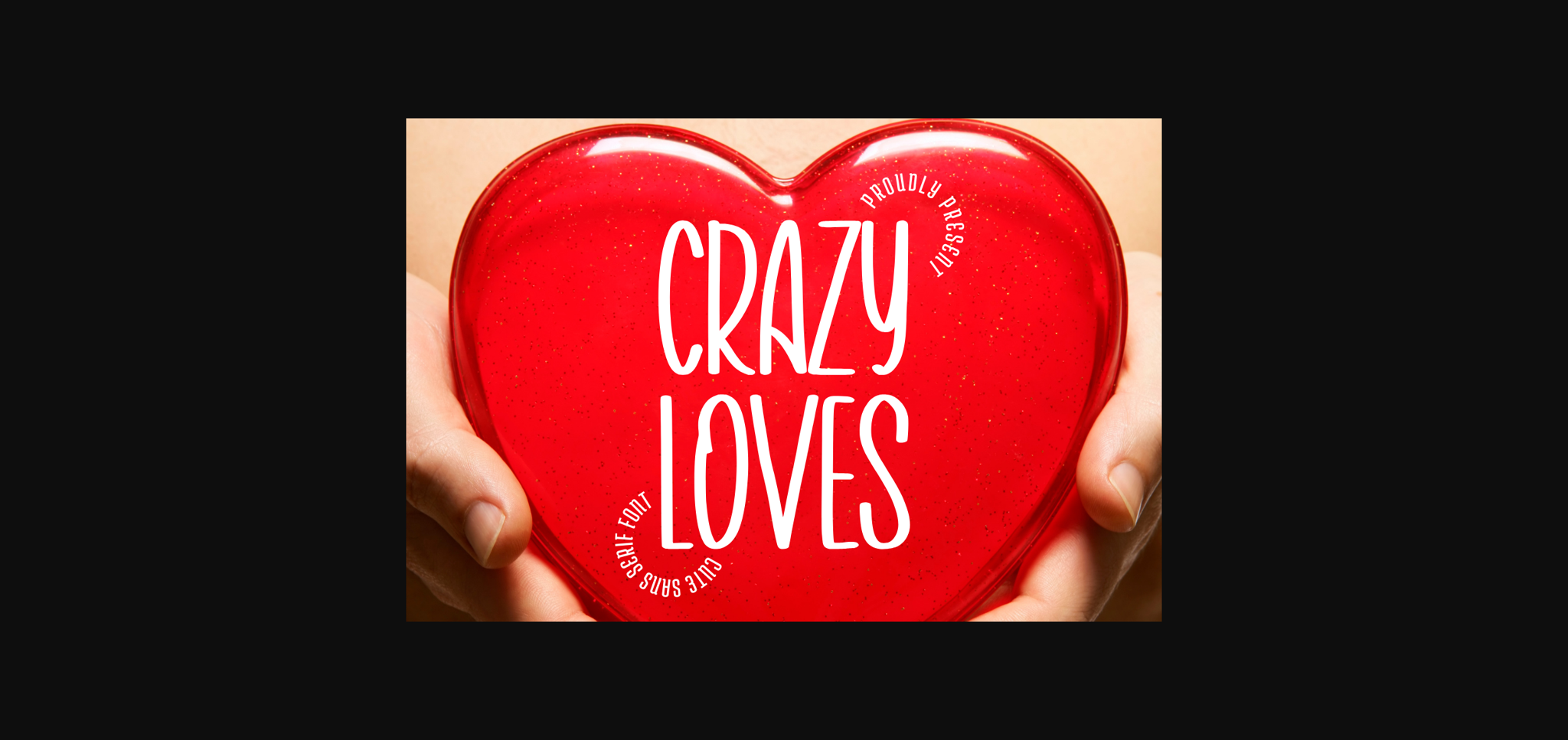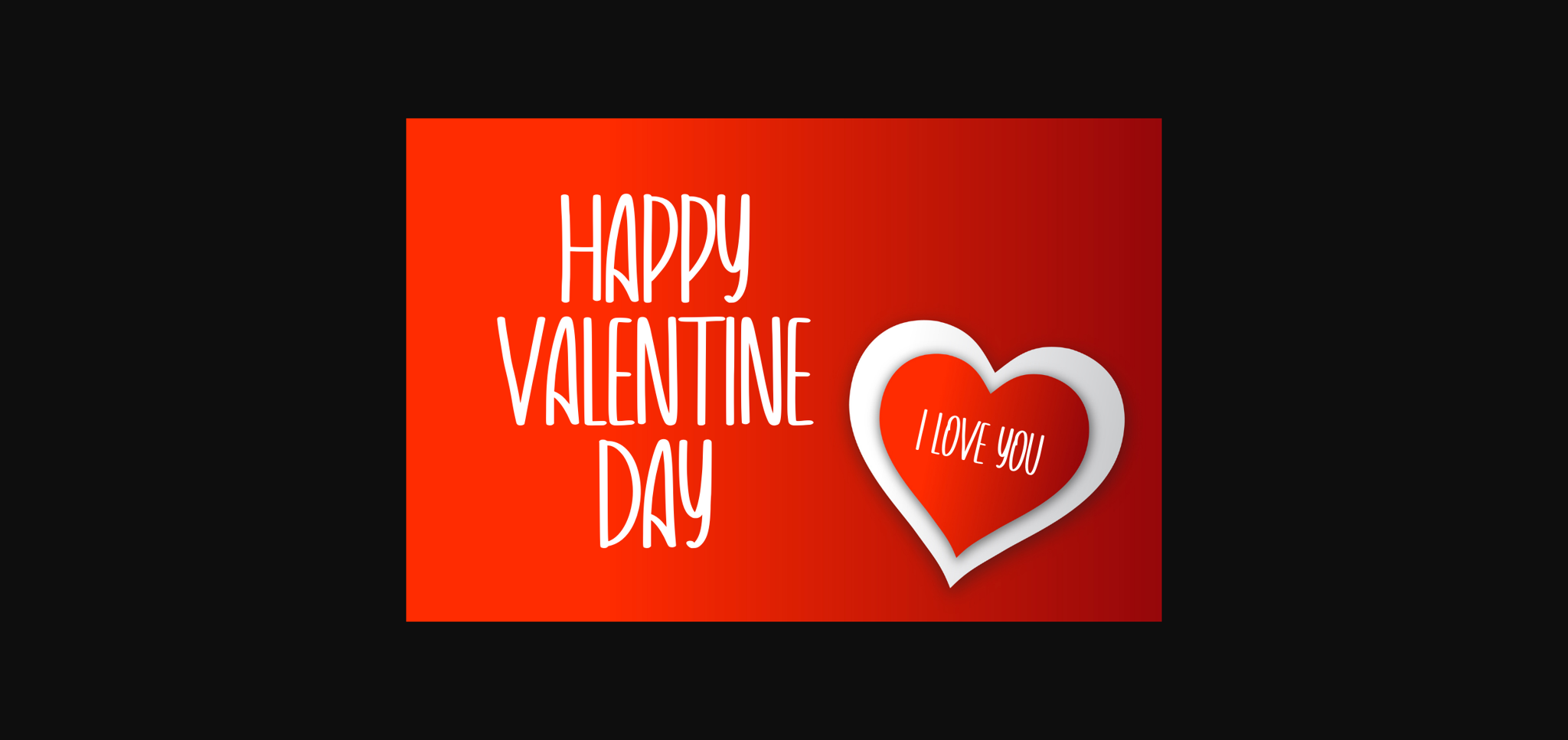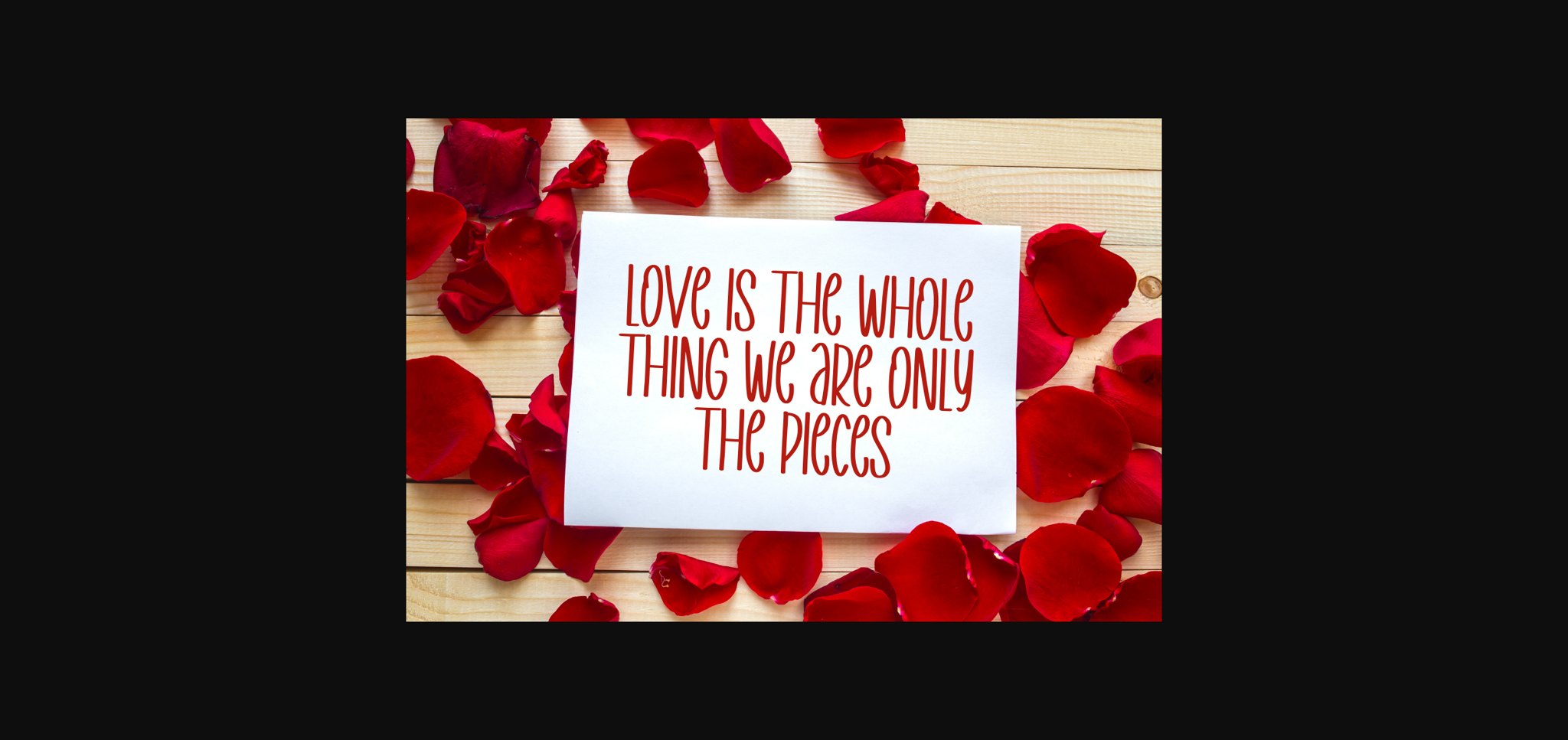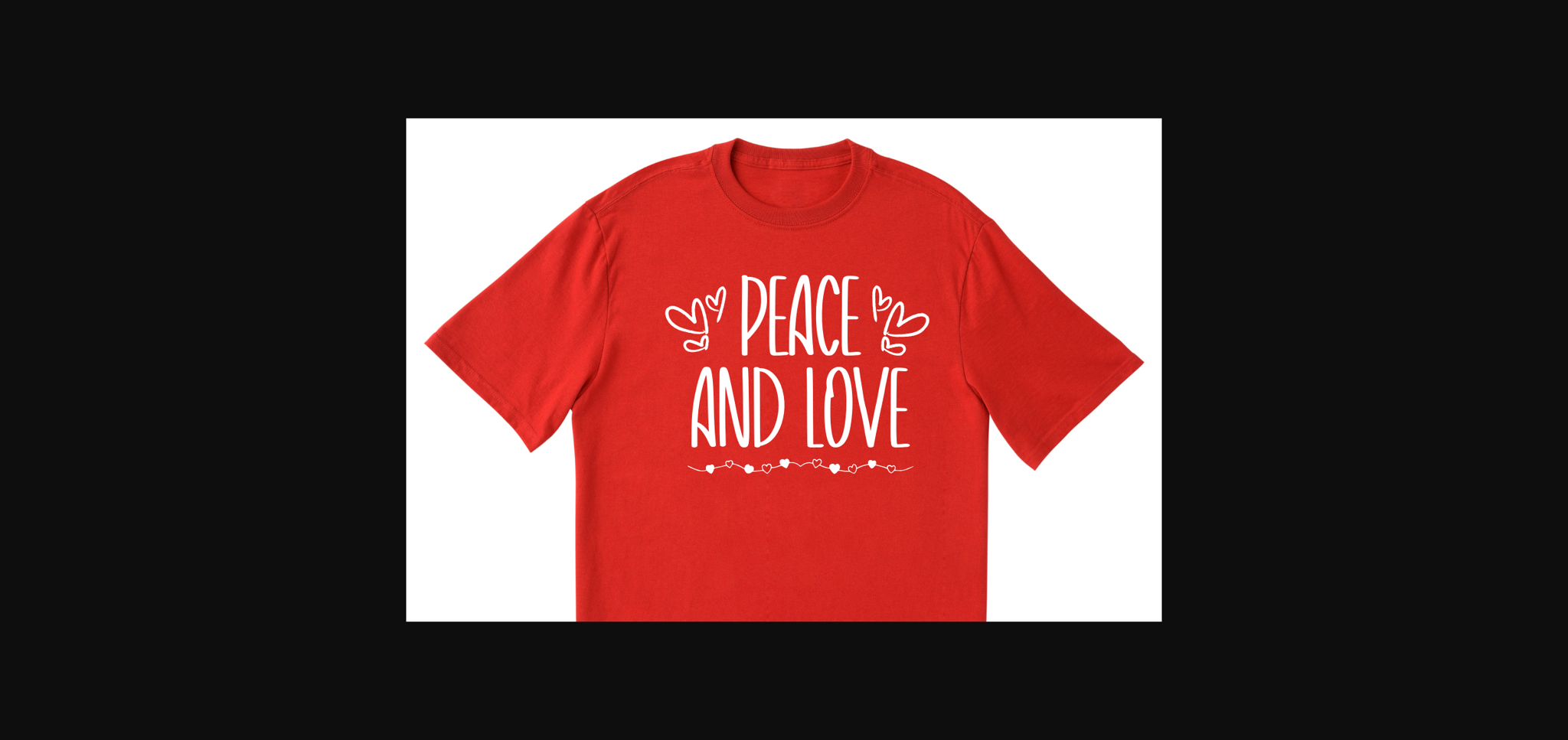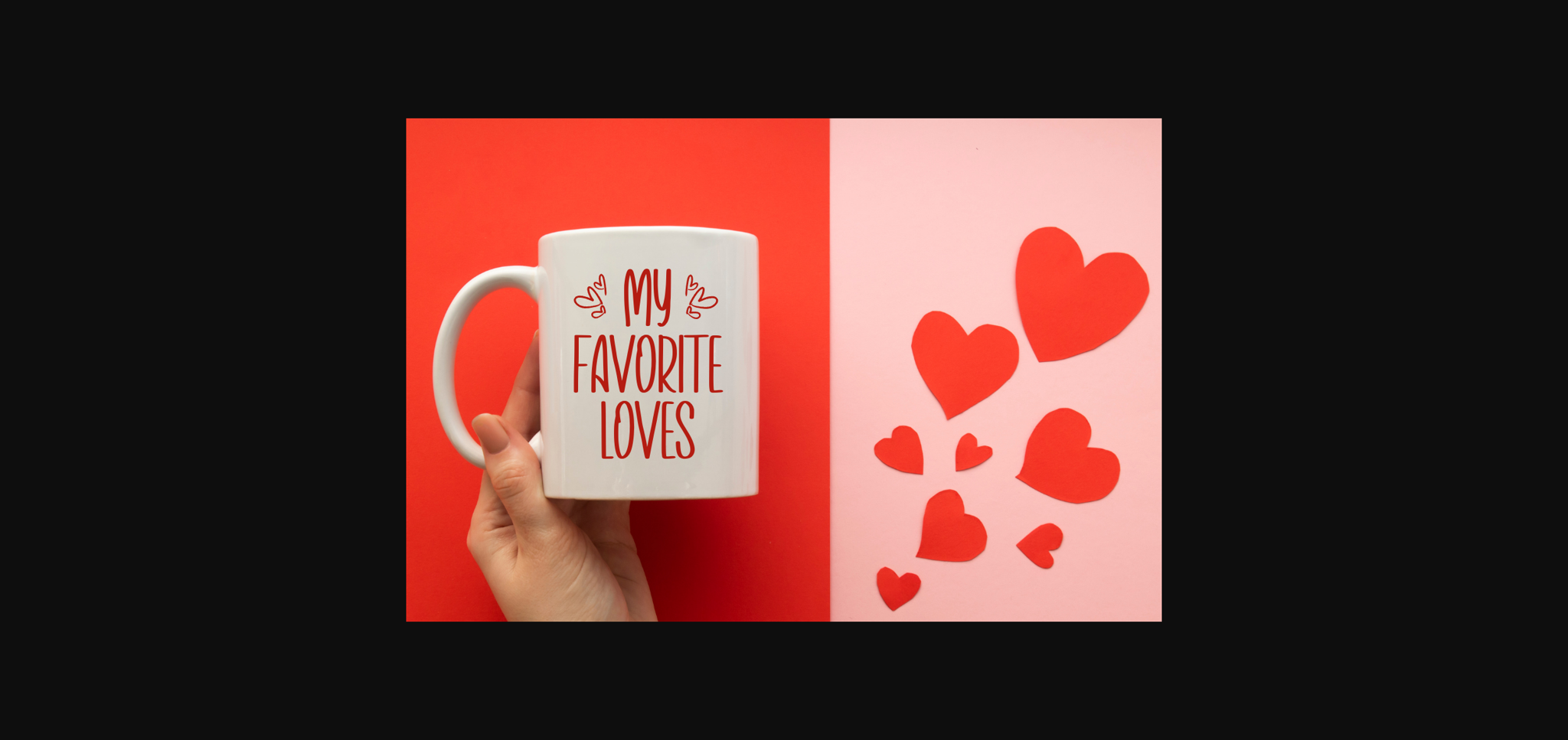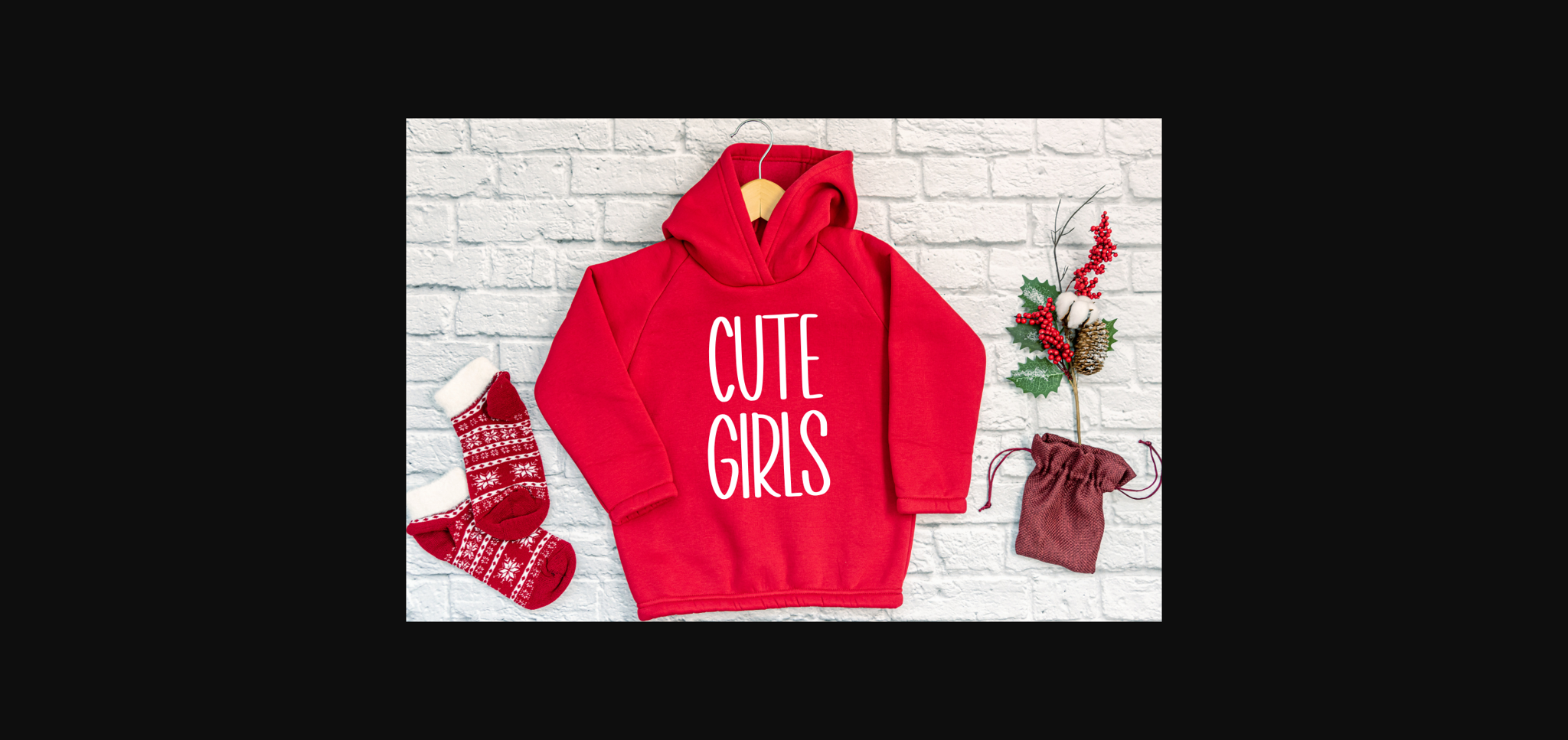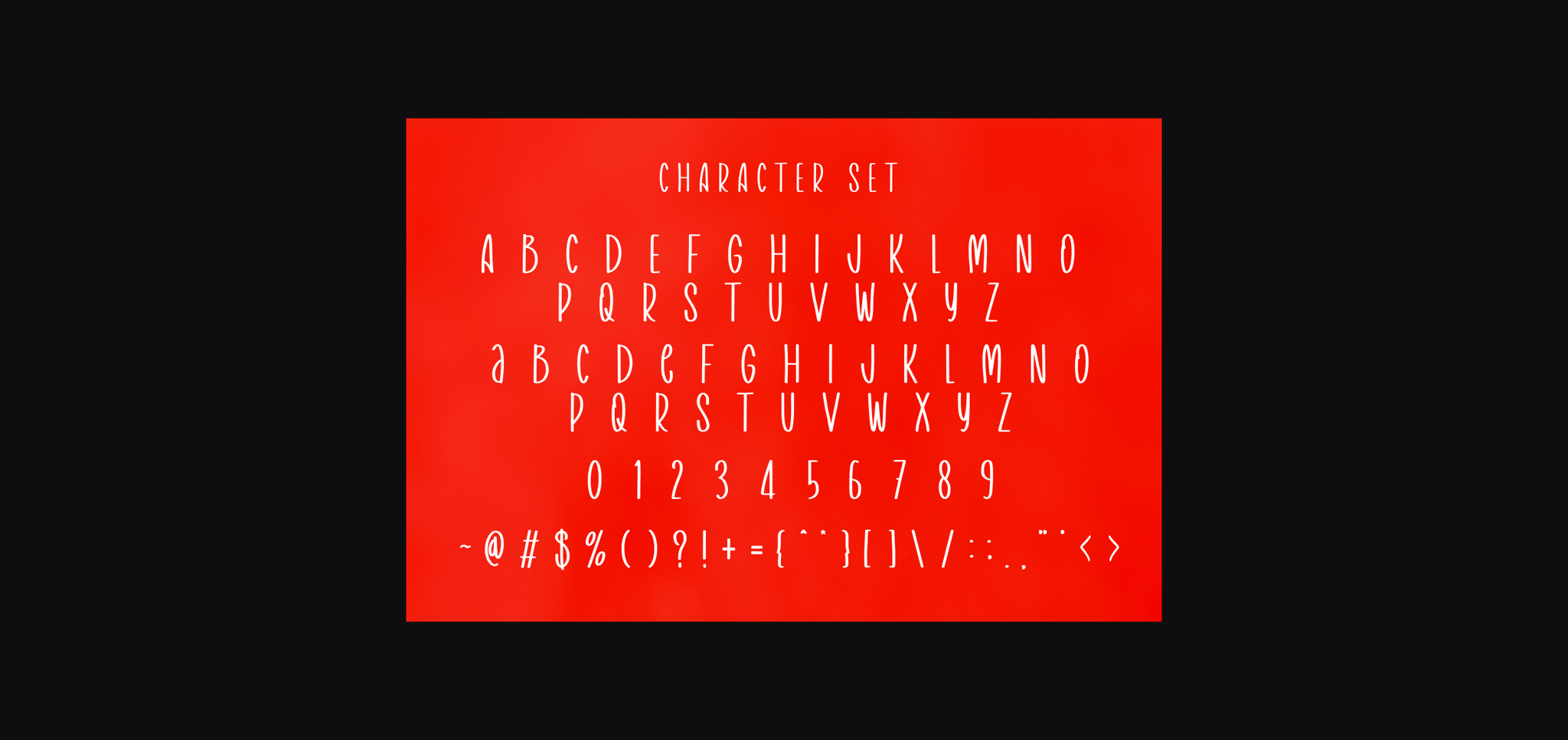
Crazy Loves Font
About Crazy Loves Font
Crazy Loves is a fun and cute sans serif font. Add to your ideas, and enjoy the results! It will look great on cards, promotional ads, social media posts, product packaging, and more.